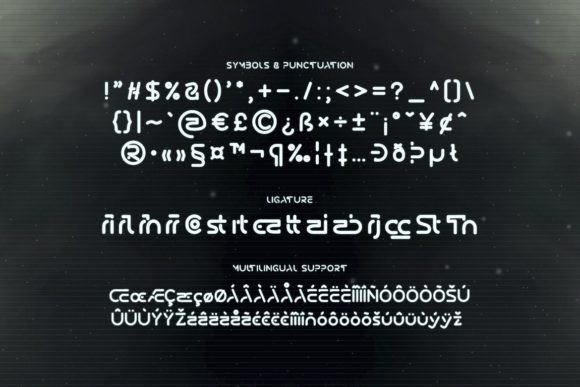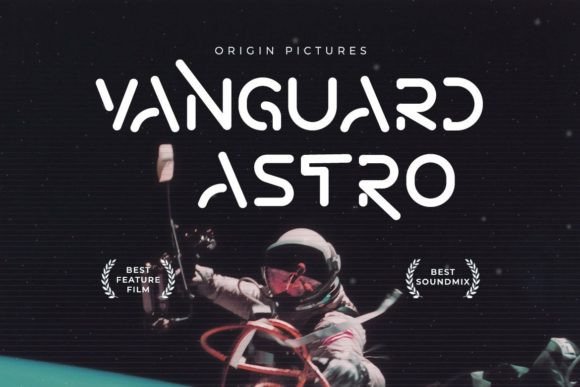
Return Spacen is a space futuristic font in a modern style.
Perfect for games, sci-fi themes, and space adventures!
Return Spacen is a space futuristic font in a modern style.
Perfect for games, sci-fi themes, and space adventures!